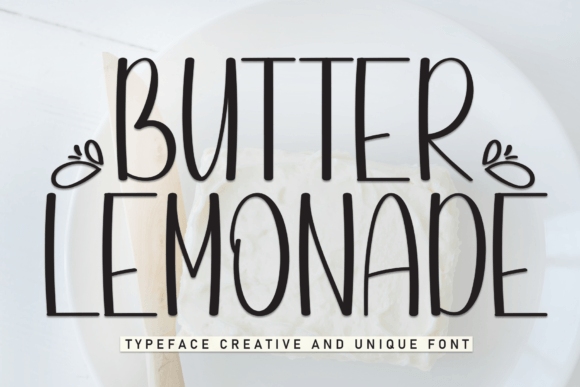
The Perfect Touch of Whimsy: Unlocking the Charm of Butter Lemonade Font
As a designer, there’s nothing quite like that moment when you stumble upon the perfect font for a project. It’s like discovering a hidden treasure that brings your entire design together. For me, that moment happened when I found the Butter Lemonade Font. Its sweet and friendly sans-serif style instantly won me over, and I knew I had to share it with fellow designers.
Butter Lemonade Font is more than just a cute font – it’s a versatile tool that can add a fresh touch to any design. From wedding invitations to greeting cards, this font is perfect for creating a warm and inviting atmosphere. Its value lies in its ability to bring a smile to the reader’s face, making it a valuable addition to any designer’s toolkit.
Butter Lemonade Font Key Features
• Font Family: Butter Lemonade Font is a sans-serif font family, designed to evoke a sense of modernity and elegance.
• Unique Characteristics: The font’s unique blend of geometric and organic elements creates a distinctive, modern aesthetic that is both sophisticated and approachable.
Designer Review: Butter Lemonade Font
Overall, I think Butter Lemonade Font is a charming and quirky addition to any design project. Here are some aspects that I particularly appreciate: ✨
• Unique character set – The font’s distinctive letterforms and symbols add a touch of whimsy to any text-based design.
• Playful vibe – The font’s personality is infectious, making it perfect for projects that need a bit of fun and personality.
• Legibility – Despite its playful nature, the font is still relatively easy to read, making it a great choice for body text or headings.
• Limited font sizes – The font appears to be optimized for larger sizes, and may not be as effective at smaller sizes.
• Lack of bold weights – The font only comes in regular and italic weights, which may limit its use in certain design contexts.
Overall, I think Butter Lemonade Font is a great choice for designers looking to add a bit of personality to their projects. While it may not be suitable for every design task, it’s definitely a unique and eye-catching option to consider.
The Butter Lemonade Font is a great choice for:
• Summer-themed designs (e.g. beach, pool, BBQ)
• Food and drink branding (e.g. lemonade stands, restaurants)
• Whimsical and playful designs (e.g. children’s party invitations, greeting cards)
For optimal results, pair the Butter Lemonade Font with bright, bold colors and playful graphics.
What is the recommended font size and line height for using Butter Lemonade?
For optimal readability, we recommend using Butter Lemonade at a font size between 18-24 points, with a line height of at least 1.2 times the font size. This will help ensure that the font is legible and visually appealing in a variety of design contexts.